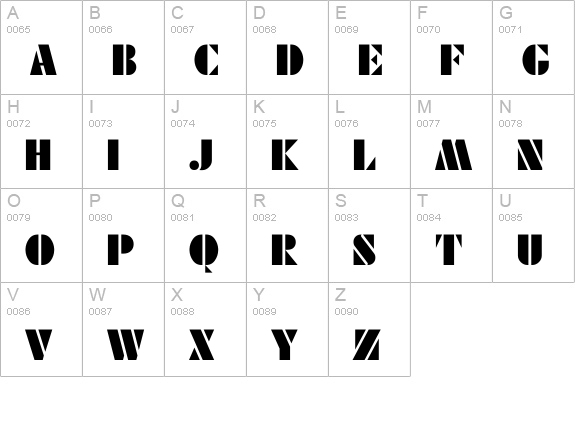
Rodchenko Font Details
The Rodchenko font is a modern and sleek typeface that exudes sophistication and elegance. Its clean lines and sharp edges give it a contemporary look, making it perfect for a wide range of design projects. Whether you're creating a stylish logo, a sleek website, or a professional-looking brochure, Rodchenko is sure to make a bold statement. What's even better is that the Rodchenko font is completely free to download at FontsMarket.com. This means you can add this stunning typeface to your collection without breaking the bank. Don't miss out on the opportunity to elevate your designs with the striking Rodchenko font today!